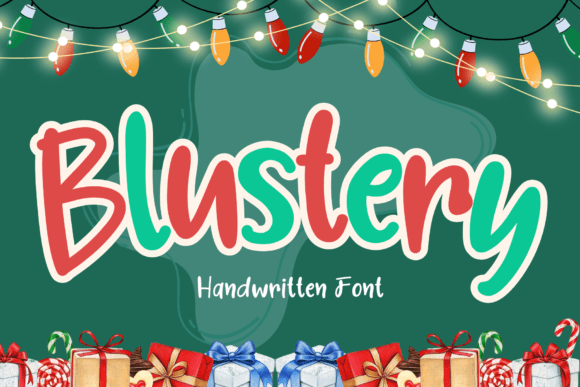
Introducing Blustery Font, the ultimate choice for those seeking the best font for long text. Crafted with utmost care by Brown Cupple Fonts, this script font is here to revolutionize your creative journey.
Blustery Font is not just your average font; it's a true work of art that adds a touch of whimsy and authenticity to any project. With its playful and handwritten style, it exudes a sense of joy that will instantly captivate your audience.
Whether you're working on blog posts, logos, branding, ads, invitations, greeting cards, planners, photo albums, decorations, or any other creative endeavor, Blustery Font is the perfect companion. It seamlessly blends with various design elements, breathing life into your visions.
Imagine the possibilities as this delightful font dances across your digital canvas, effortlessly transforming mundane text into a visually stunning masterpiece. Let your creativity run wild and watch as Blustery Font turns your ideas into reality.
But what sets Blustery Font apart from the rest? Its versatility and adaptability. This font effortlessly adapts to any project, enhancing its visual appeal and leaving a lasting impression on your audience.
With Blustery Font, you'll effortlessly convey emotions and connect with your readers on a deeper level. It evokes a sense of warmth, playfulness, and authenticity that is bound to resonate with your target audience.